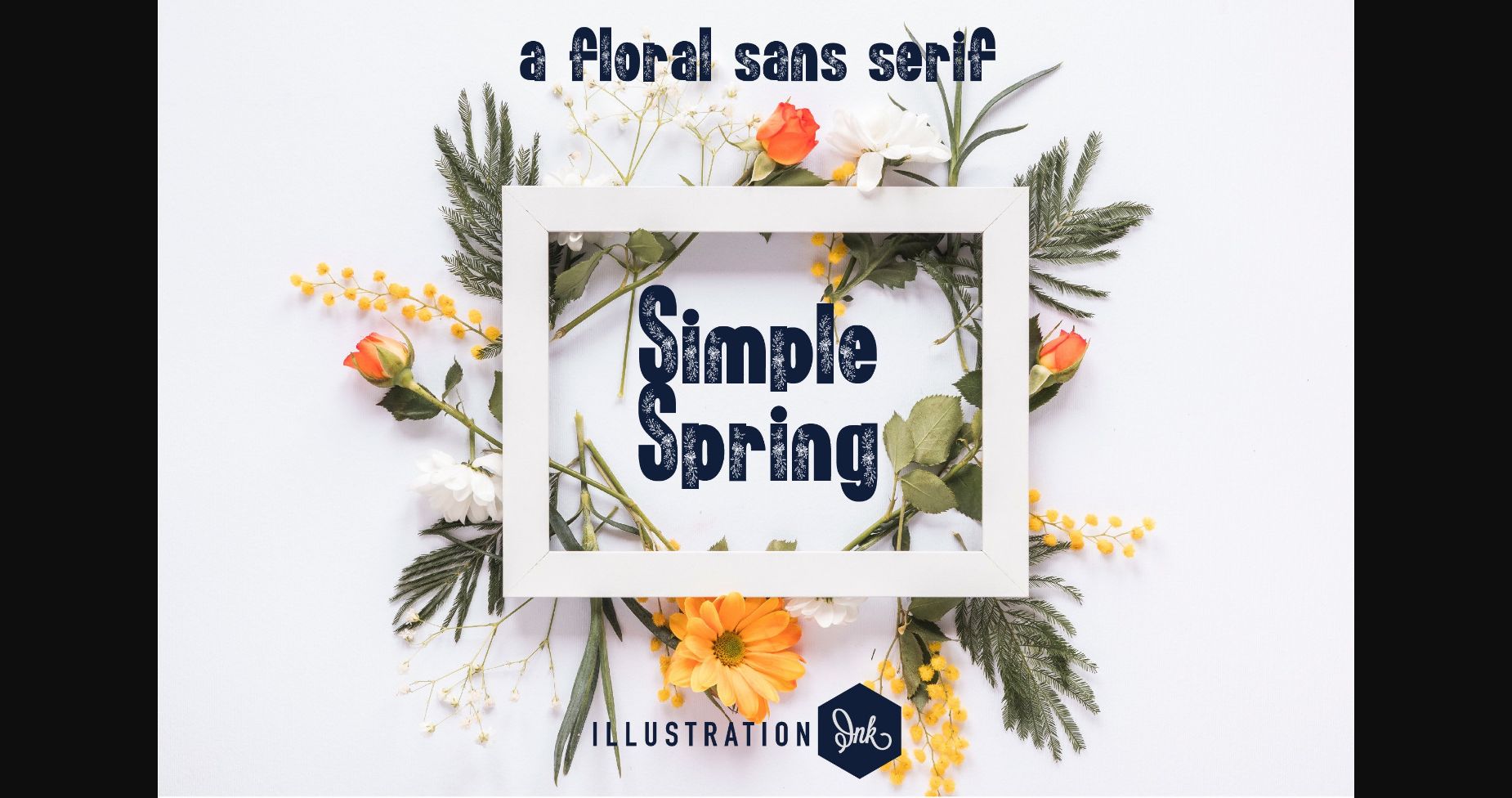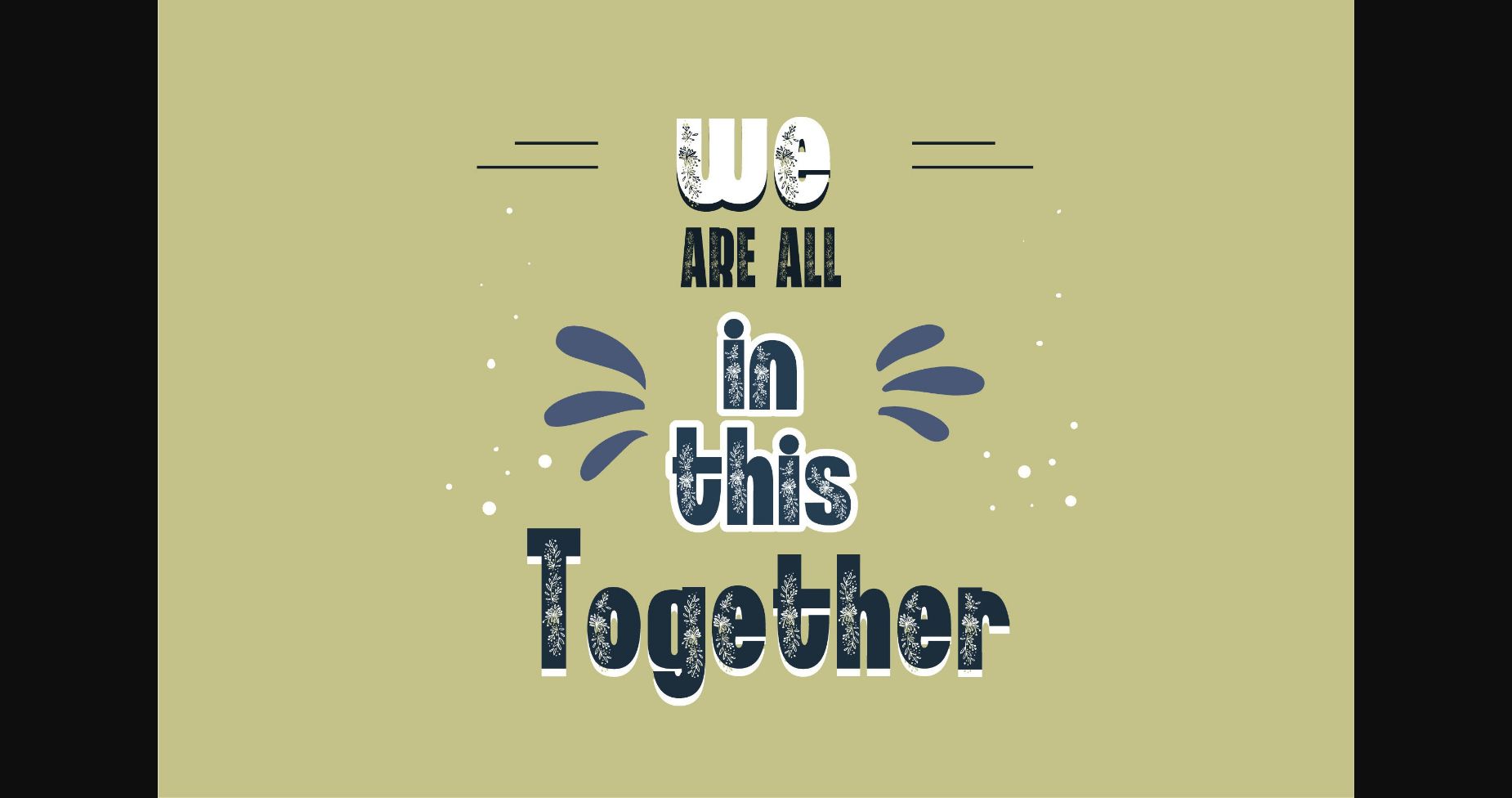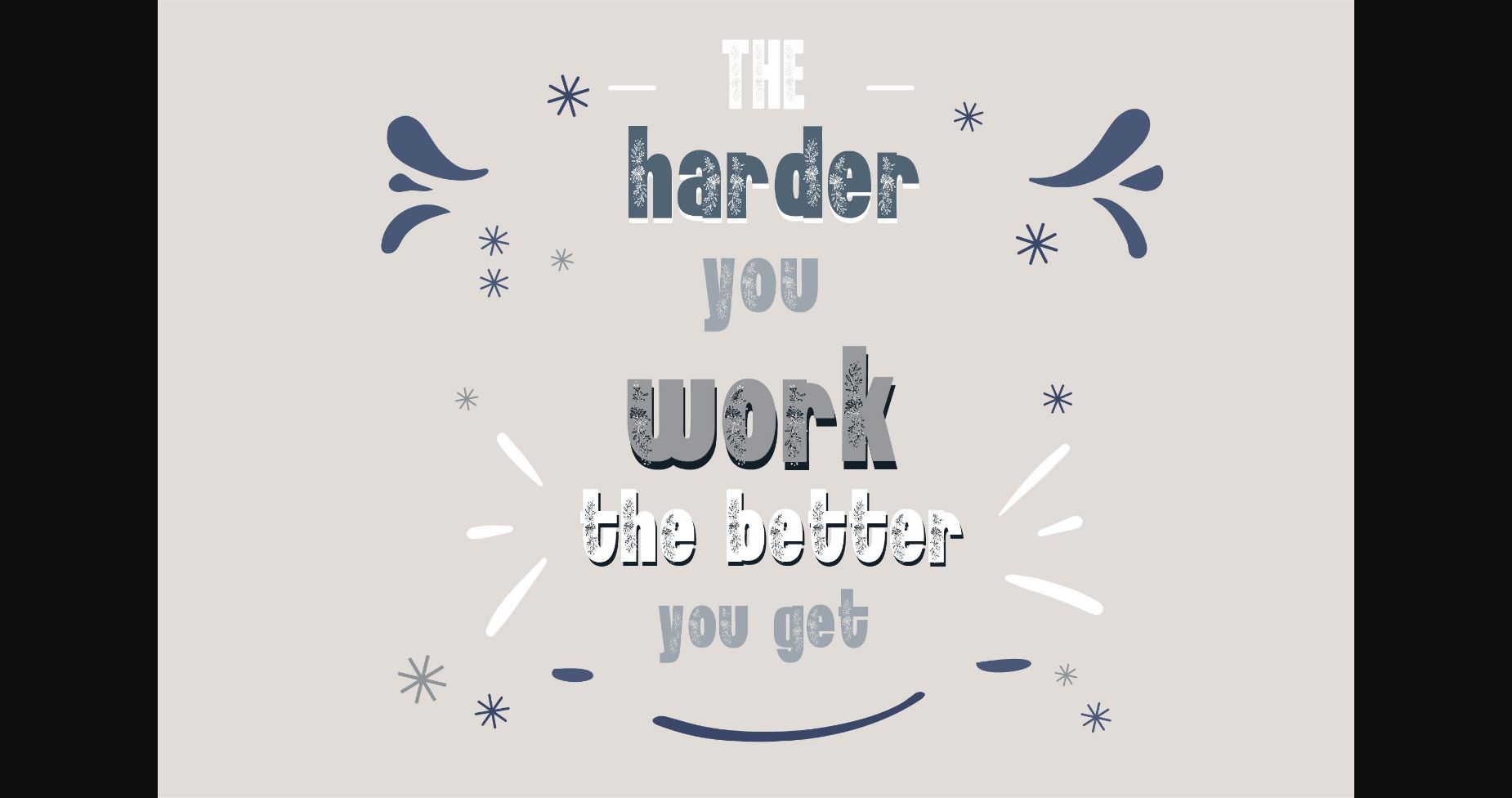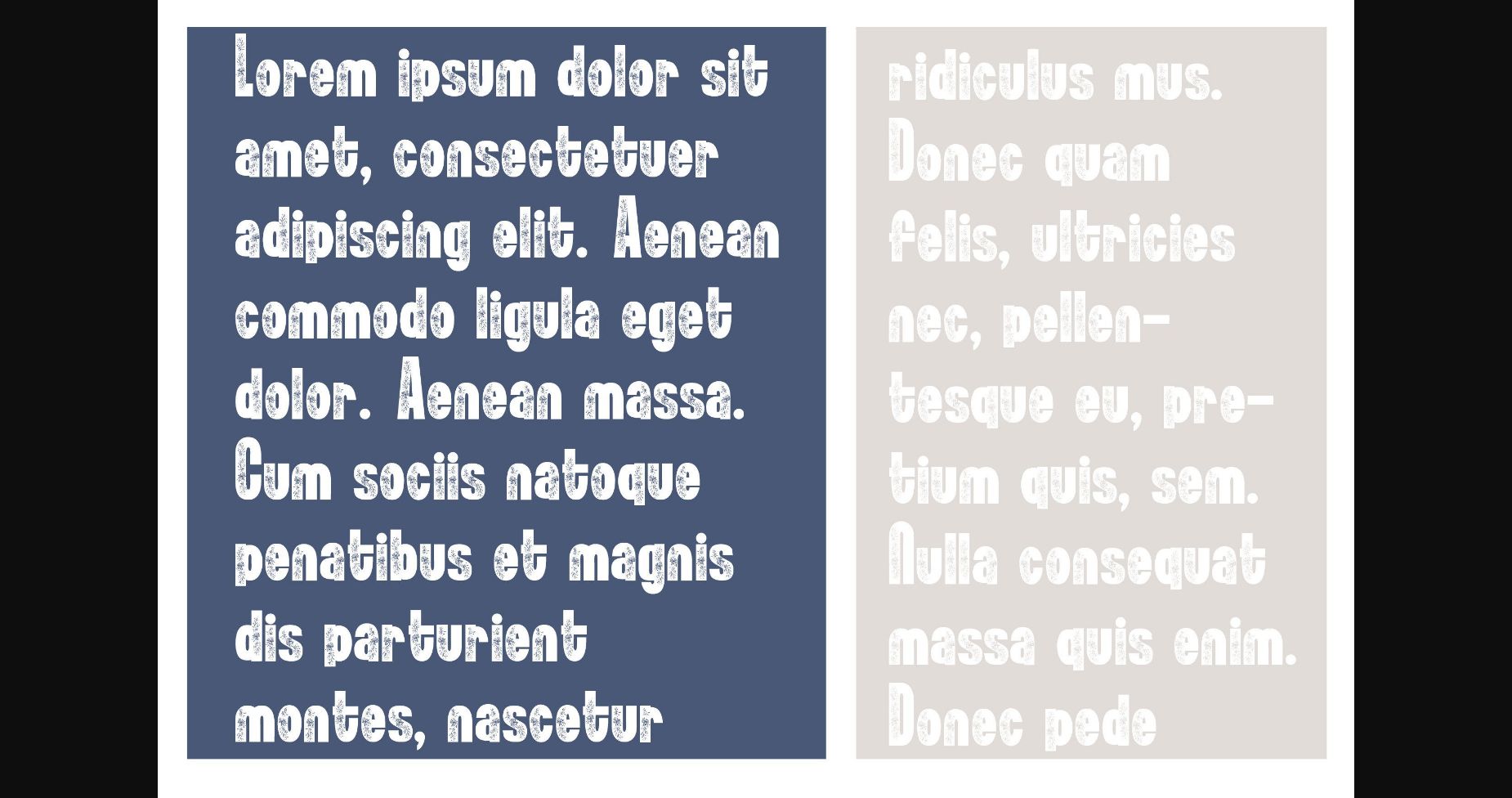
About Simple Spring Font
Simple Spring is a bold sans serif font that sports a floral spray throughout. Fall in love with it and bring your projects to the highest levels!